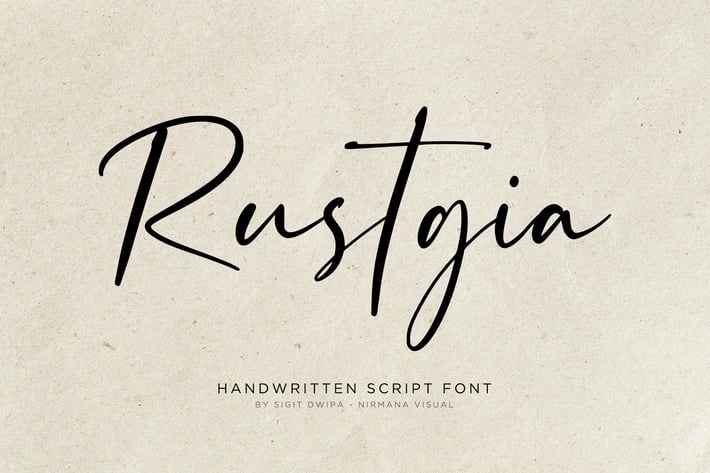
Rustgia - Handwritten Font
Give your designs an authentic handcrafted feel. "Rustgia" is perfectly suited to signature, stationery, logo, typography quotes, magazine or book cover, website header, clothing, branding, packaging design and more.